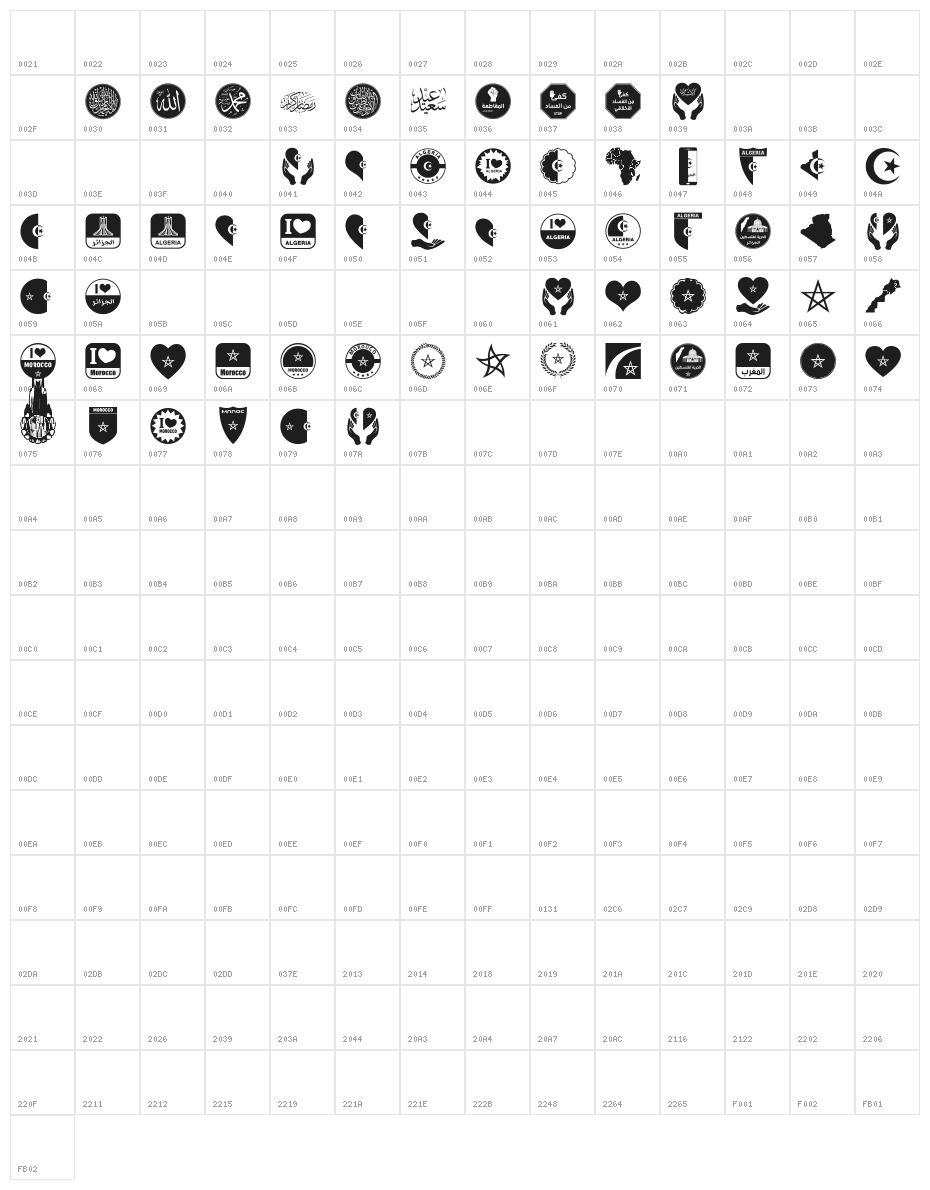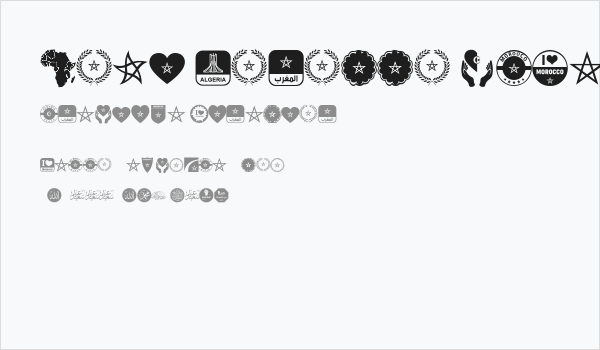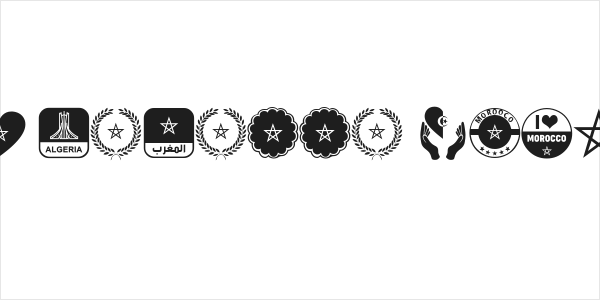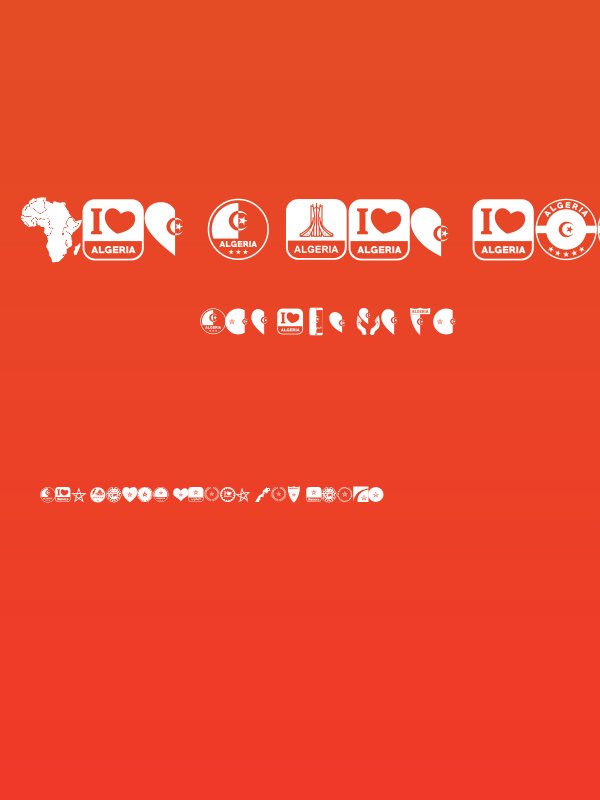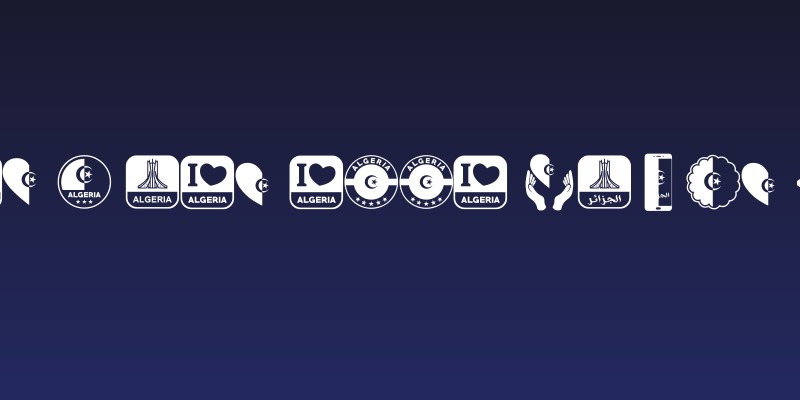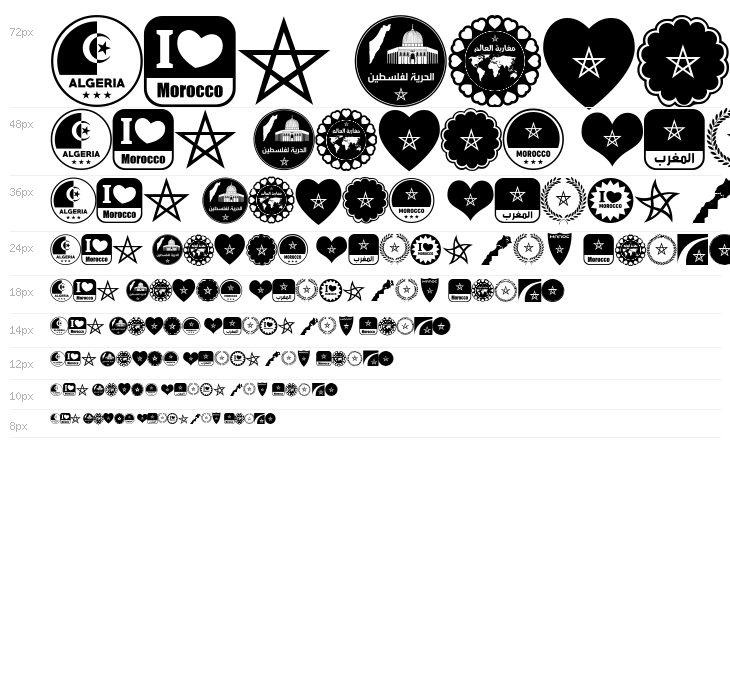
Font Morocco Algeria Description
This collection features a series of decorative symbols and icons representing cultural and national elements of Algeria and Morocco. The designs incorporate various motifs such as maps, flags, and traditional symbols, often enclosed in circular or shield-like shapes. The imagery is bold and striking, utilizing high contrast between black and white to emphasize the details. The icons are suitable for use in projects that require a cultural or nationalistic theme, offering a visually engaging way to represent these countries.
| Use Case | Logos, Icons, Cultural Displays |
| Proposed Projects | Ideal for cultural presentations, educational materials, travel brochures, and themed merchandise. |